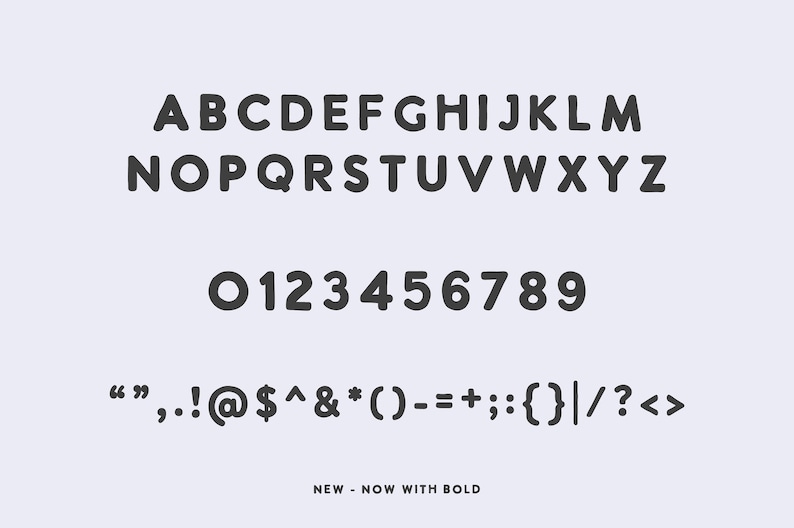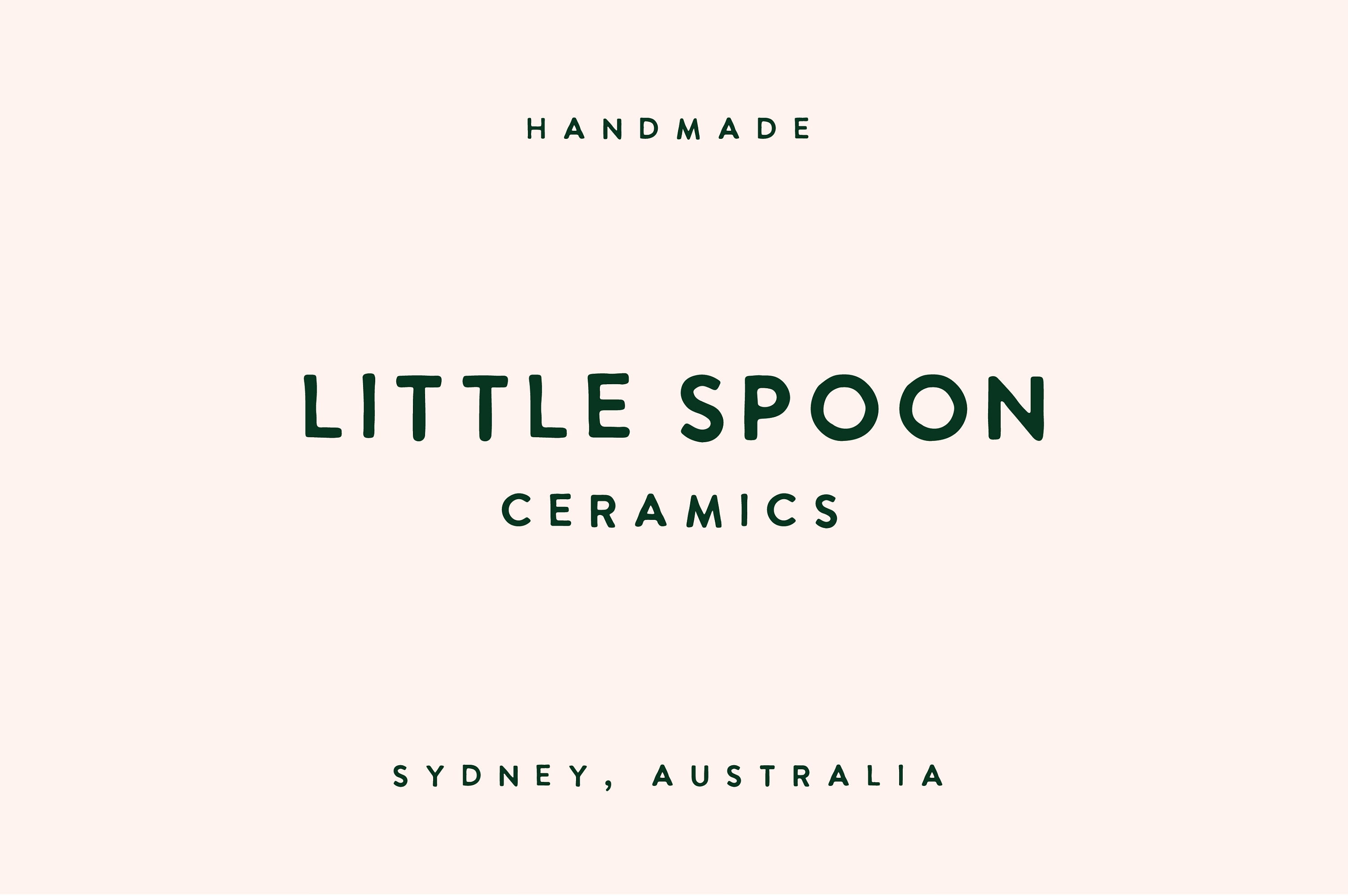
Milk & Clay Font
Milk & Clay Font - This font was inspired by a friend who is a. Meet milk & clay, the font that started it all. Web complete family of 2 fonts: Milk & clay font family was designed by loryn b and published by loryn ipsum. Web milk & clay | handwritten sans serif font.
This font was inspired by a friend who is a. Milk & clay font family was designed by loryn b and published by loryn ipsum. Web complete family of 2 fonts: Web milk & clay | handwritten sans serif font. Meet milk & clay, the font that started it all.
Meet milk & clay, the font that started it all. This font was inspired by a friend who is a. Web complete family of 2 fonts: Milk & clay font family was designed by loryn b and published by loryn ipsum. Web milk & clay | handwritten sans serif font.
This font was inspired by a friend who is a. Web complete family of 2 fonts: Meet milk & clay, the font that started it all. Milk & clay font family was designed by loryn b and published by loryn ipsum. Web milk & clay | handwritten sans serif font.
This font was inspired by a friend who is a. Web complete family of 2 fonts: Meet milk & clay, the font that started it all. Web milk & clay | handwritten sans serif font. Milk & clay font family was designed by loryn b and published by loryn ipsum.
Milk & Clay Font
Web complete family of 2 fonts: This font was inspired by a friend who is a. Milk & clay font family was designed by loryn b and published by loryn ipsum. Meet milk & clay, the font that started it all. Web milk & clay | handwritten sans serif font.
Web milk & clay | handwritten sans serif font. Web complete family of 2 fonts: Milk & clay font family was designed by loryn b and published by loryn ipsum. This font was inspired by a friend who is a. Meet milk & clay, the font that started it all.
Meet milk & clay, the font that started it all. This font was inspired by a friend who is a. Web milk & clay | handwritten sans serif font. Milk & clay font family was designed by loryn b and published by loryn ipsum. Web complete family of 2 fonts:
Meet milk & clay, the font that started it all. Web complete family of 2 fonts: This font was inspired by a friend who is a. Web milk & clay | handwritten sans serif font. Milk & clay font family was designed by loryn b and published by loryn ipsum.
Web complete family of 2 fonts: Milk & clay font family was designed by loryn b and published by loryn ipsum. Meet milk & clay, the font that started it all. This font was inspired by a friend who is a. Web milk & clay | handwritten sans serif font.
This font was inspired by a friend who is a. Meet milk & clay, the font that started it all. Web complete family of 2 fonts: Milk & clay font family was designed by loryn b and published by loryn ipsum. Web milk & clay | handwritten sans serif font.
Milk & clay font family was designed by loryn b and published by loryn ipsum. Web complete family of 2 fonts: Web milk & clay | handwritten sans serif font. This font was inspired by a friend who is a. Meet milk & clay, the font that started it all.
Meet milk & clay, the font that started it all. Web complete family of 2 fonts: Web milk & clay | handwritten sans serif font. This font was inspired by a friend who is a. Milk & clay font family was designed by loryn b and published by loryn ipsum.
Meet Milk & Clay, The Font That Started It All.
This font was inspired by a friend who is a. Milk & clay font family was designed by loryn b and published by loryn ipsum. Web complete family of 2 fonts: Web milk & clay | handwritten sans serif font.